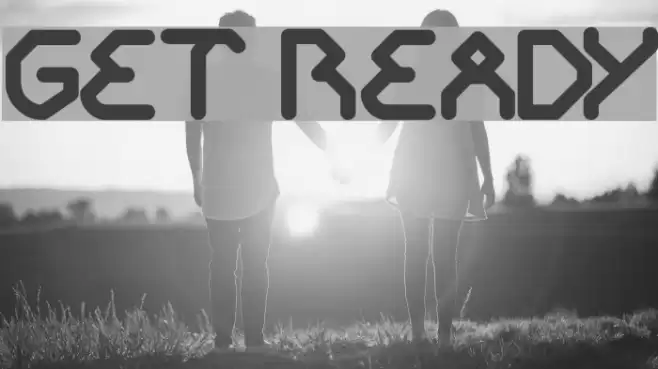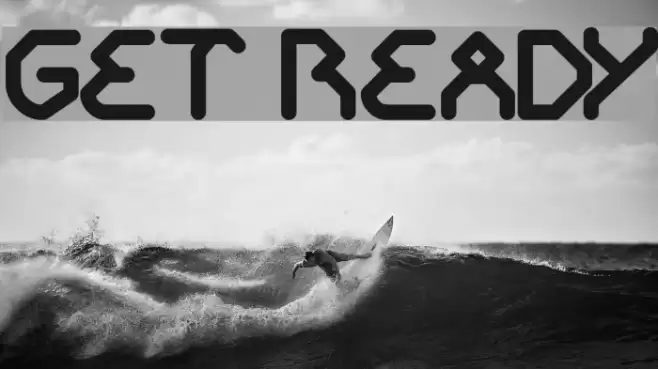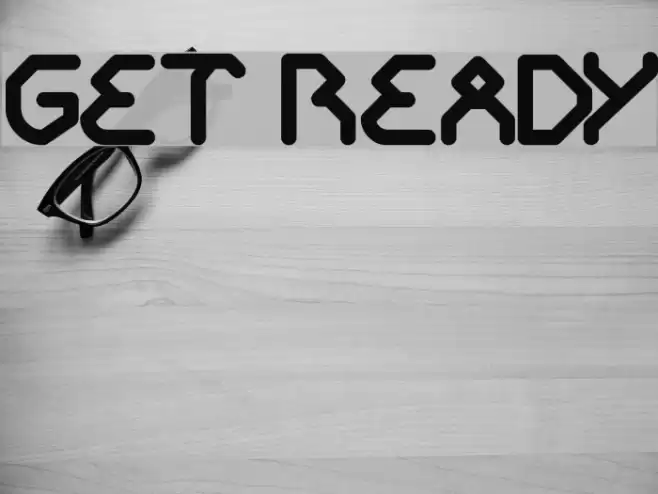
GET READY Font
This font features a bold, geometric design with a futuristic aesthetic. The characters are constructed with thick, uniform strokes, creating a strong visual impact. The angular shapes and sharp edges give it a modern and edgy feel, making it ideal for attention-grabbing designs. The uppercase letters are consistent in height and width, providing a balanced and cohesive look. The font's unique style is both eye-catching and versatile, suitable for a variety of creative applications.
A bold, geometric font with a futuristic and edgy design from Uncategorized fonts.
- Proposed Projects: Ideal for sci-fi themed projects, tech branding, video game titles, and modern posters.